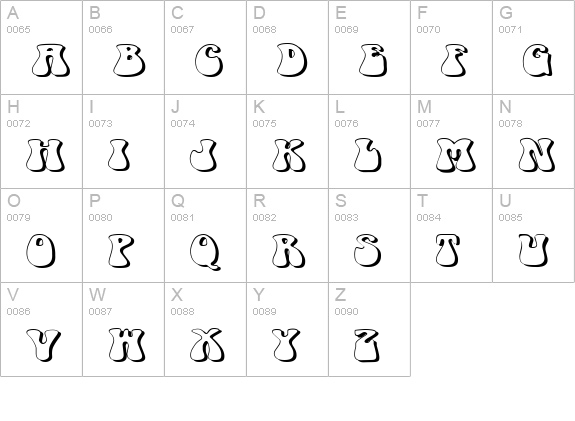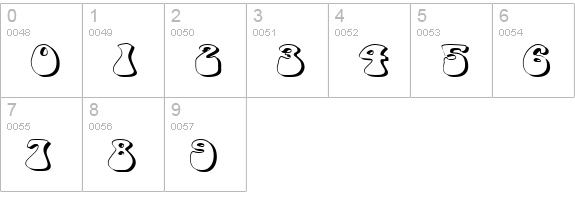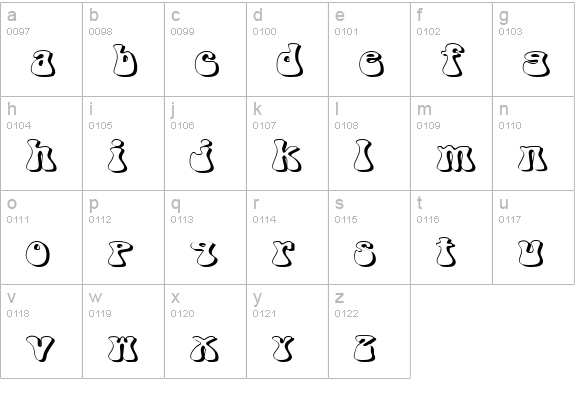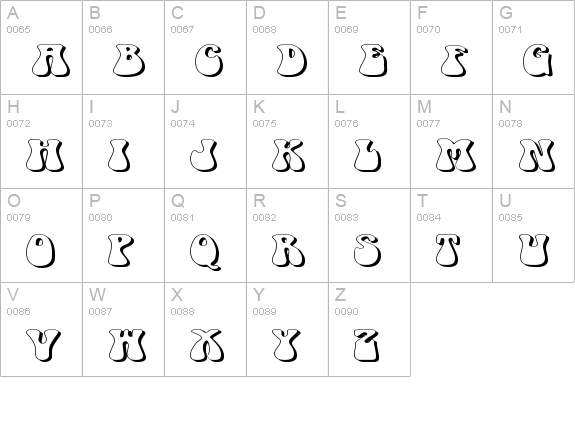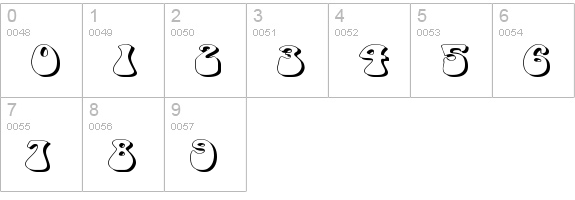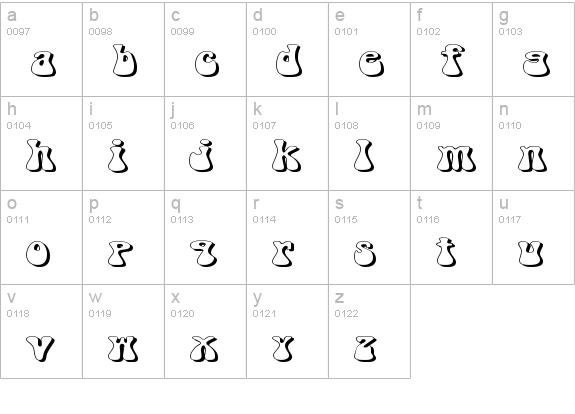
FZ JAZZY 14 3D EX Font Details
FZ JAZZY 14 3D EX font is a stylish and modern typeface that is sure to make your designs stand out. This unique font features a 3D effect that adds depth and dimension to your text, making it perfect for eye-catching headlines, posters, and more. With its bold and playful appearance, FZ JAZZY 14 3D EX font is ideal for projects that require a touch of creativity and flair. The best part is that this font is completely free to download at FontsMarket.com! You can easily access this versatile typeface and bring your design ideas to life without any cost. Don't miss out on the opportunity to enhance your projects with the FZ JAZZY 14 3D EX font – download it for free today!